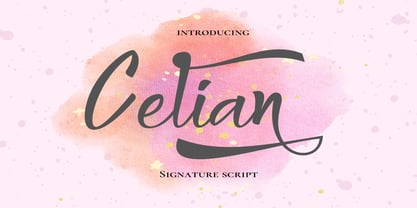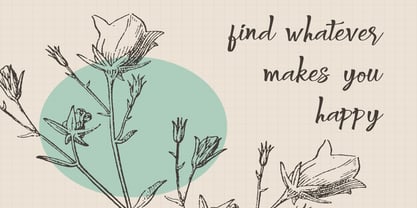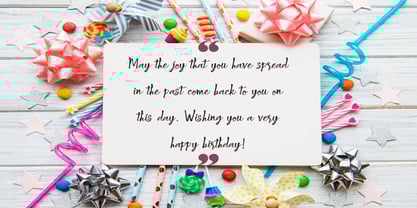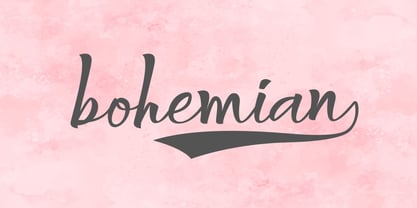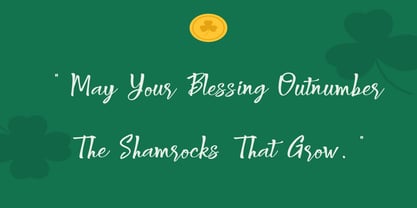
Celian
by Dream Font
The Celian Font Family was designed by Alan Dempsey and published by Dream Font. Celian contains 1 styles.
Hello Celian is a modern script with a handmade calligraphy style, decorative characters, and a dancing baseline! So beautiful on invitations like greeting cards, branding materials, business cards, quotes, posters, and more!!
Designers: Alan Dempsey
Publisher: Dream Font
Foundry: Dream Font
Design Owner: Dream Font